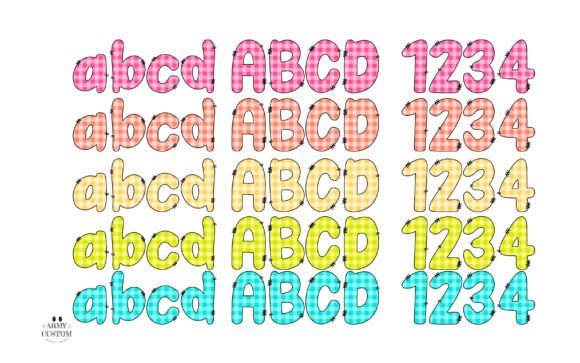
School Plaid Font
Back to School Plaid is a color font that brings playful energy to your designs with its bold letterforms and vibrant plaid patterns. Featuring **five cheerful color variations—pink, orange, yellow, green, and blue—**each letter is filled with a classic gingham-style plaid and outlined with hand-stitched details that add a whimsical, handmade touch.
This fun and eye-catching typeface is perfect for classroom projects, posters, children’s books, invitations, stickers, and digital graphics.